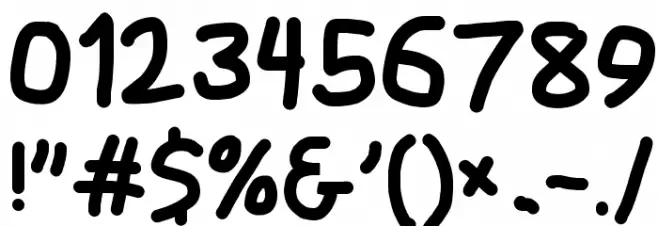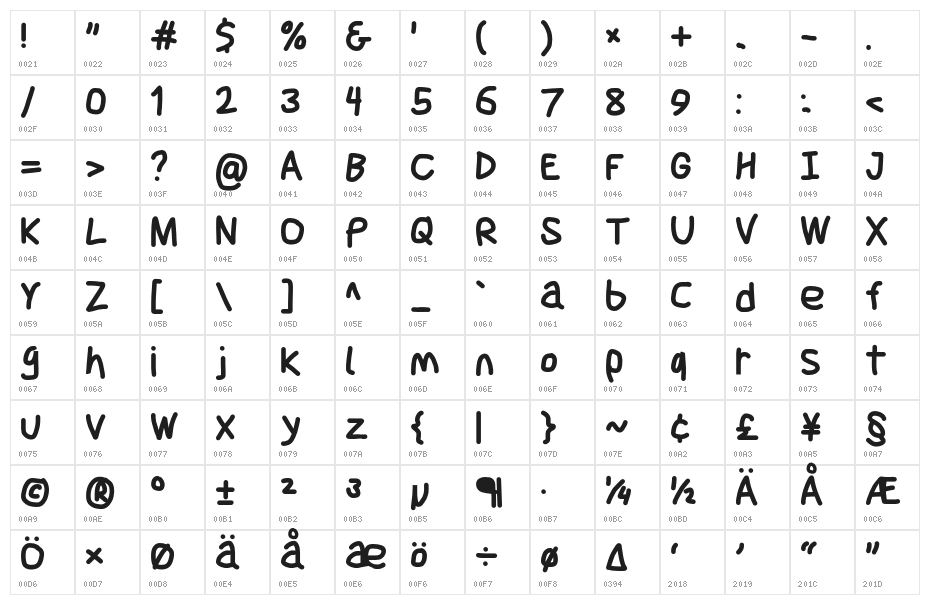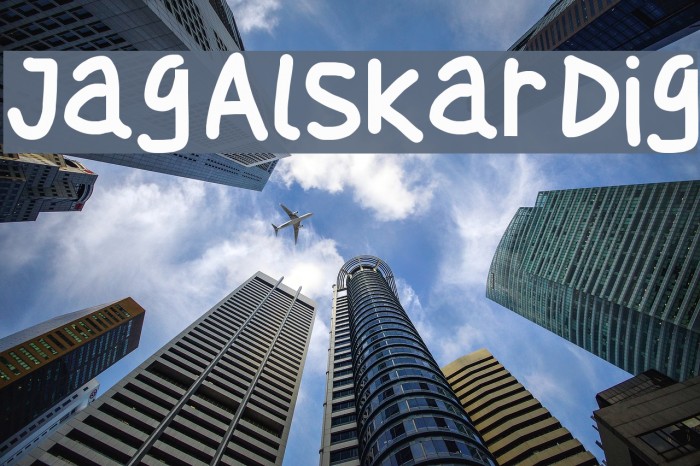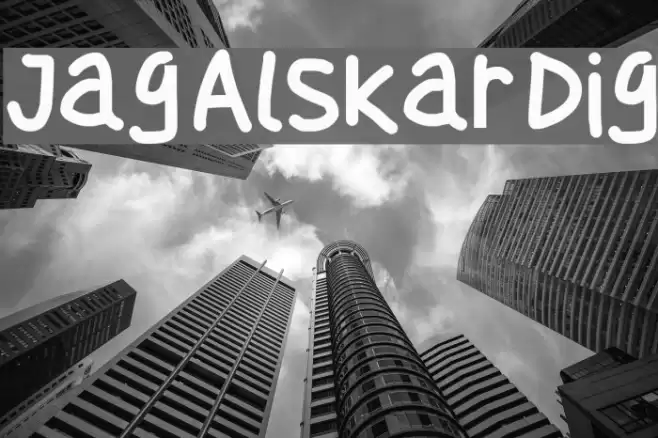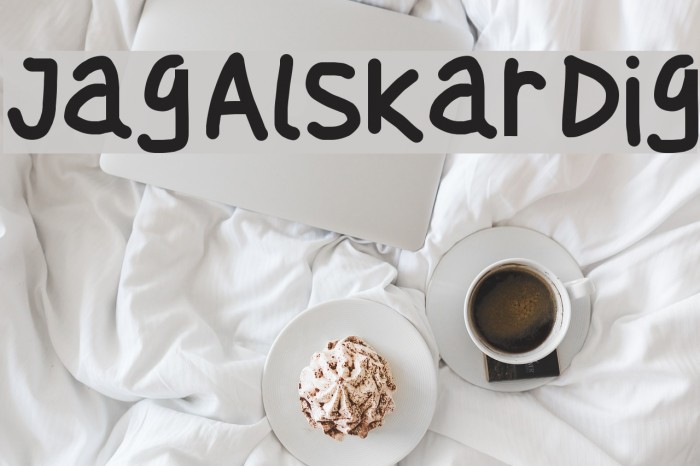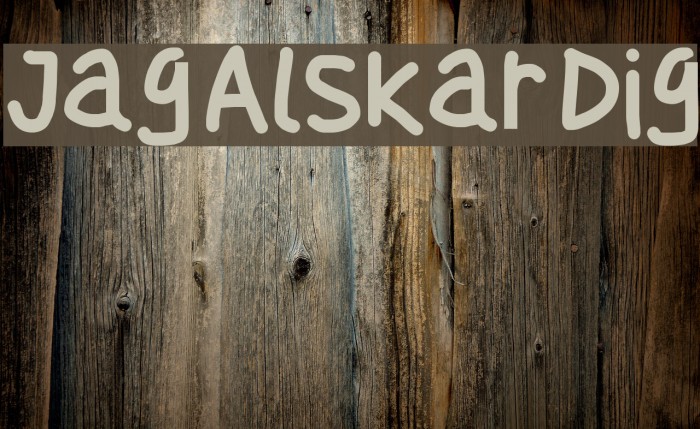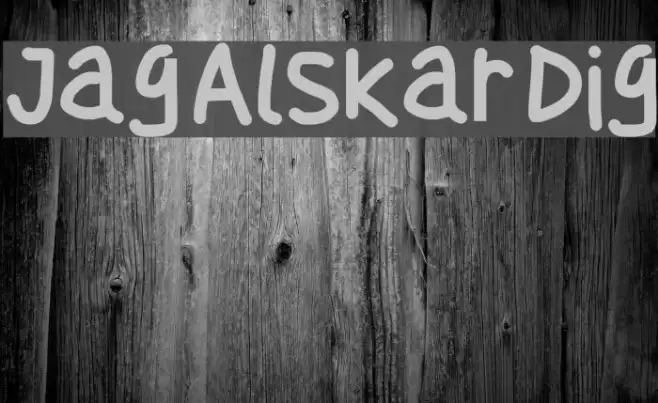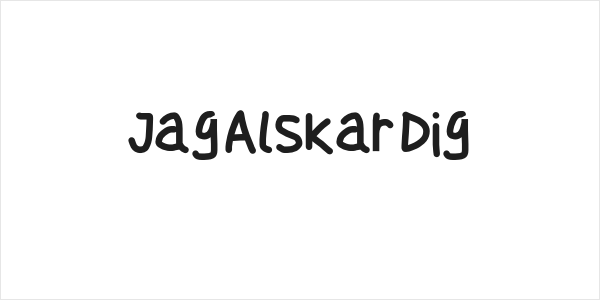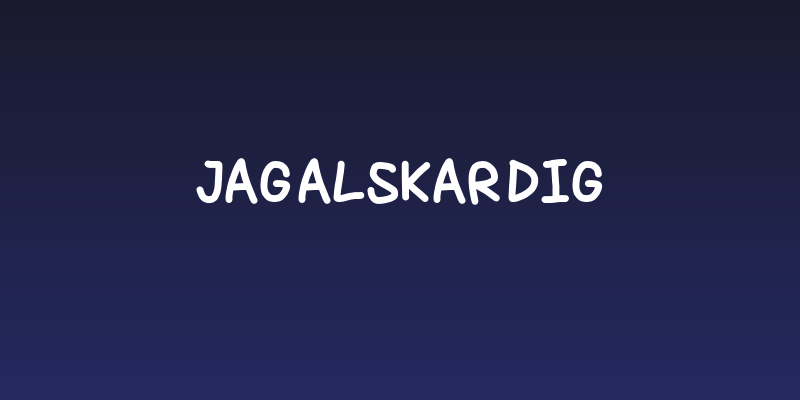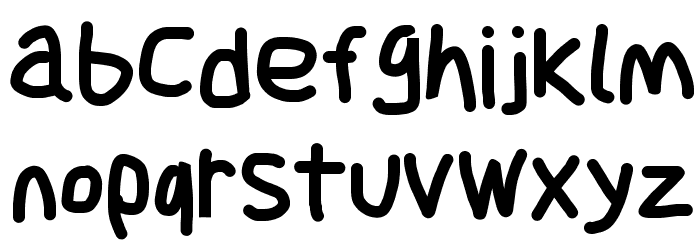
Jag Alskar Dig Font
Jag Alskar Dig Description
This font exudes a playful and informal vibe, characterized by its rounded and slightly irregular letterforms. Each character appears hand-drawn, contributing to its casual and approachable aesthetic. The uppercase and lowercase letters maintain a consistent style, with a slight tilt that adds to the font's dynamic appearance. Numbers and special characters are crafted with the same whimsical touch, ensuring uniformity across all glyphs. The strokes are bold and consistent, providing a clear and legible text even at smaller sizes. This font is ideal for projects that require a friendly and engaging tone.